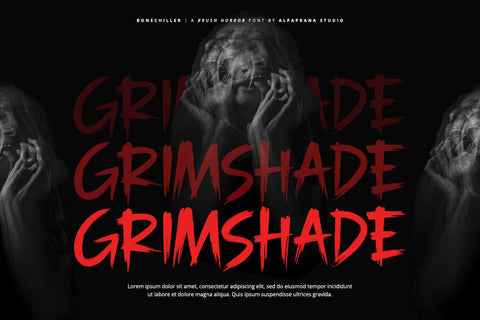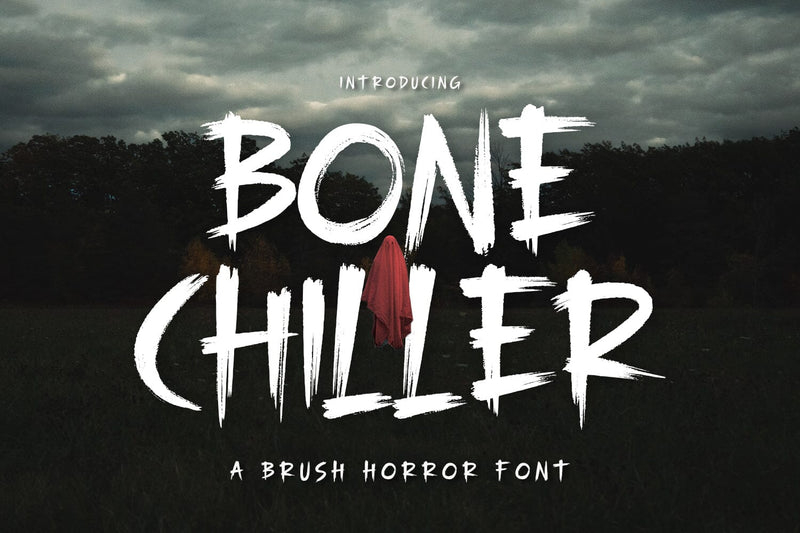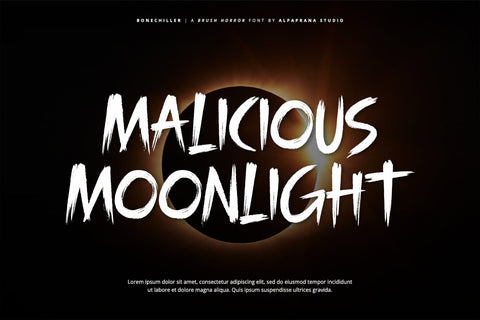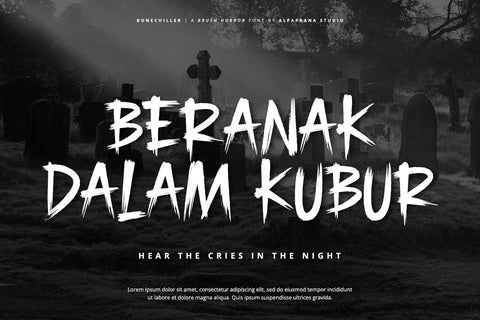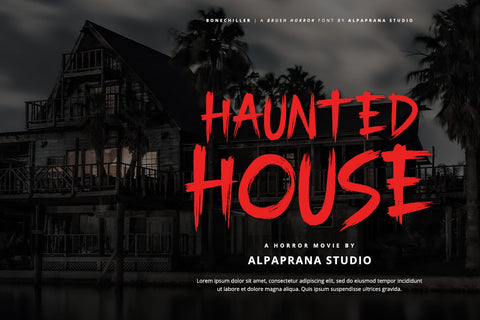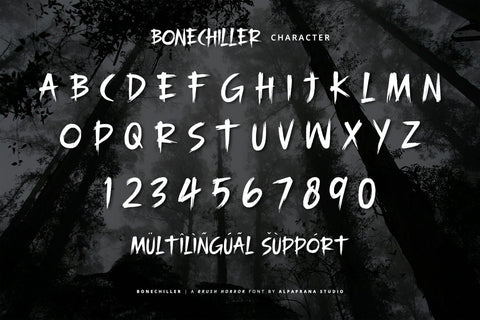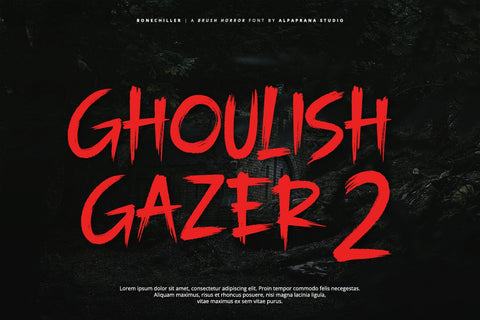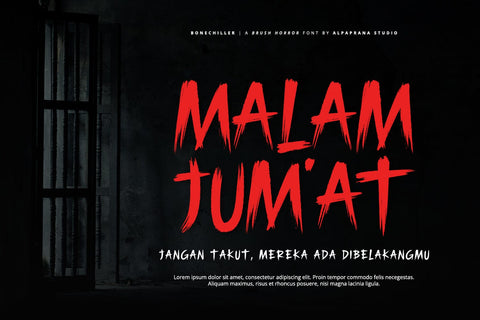
Bonechiller - Brush Font
Bonechiller is a brush horror font with scary and modern feels. It will be perfectly used for Branding, Logo Design, Lettering, Logotype, Clothing, Poster, magazine, packaging, posters, shopping bags, t-shirts, book covers, photography, special events and other design project.